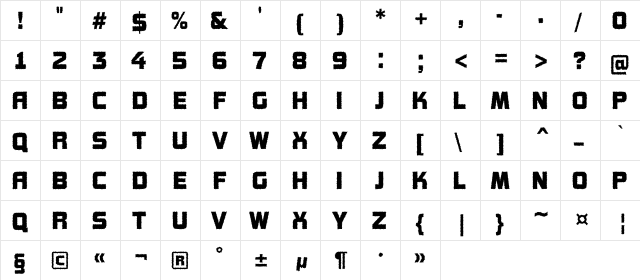
a_ConceptoTitulRough Regular
Design Context for a_ConceptoTitulRough Typeface
a_ConceptoTitulRough embraces imperfection — its rough, textured character adds raw authenticity to designs that want to feel lived-in and unconventional.
A strong fit for alternative music projects, graffiti-adjacent design, and anything that deliberately resists polish.
Pro Tip: Use a_ConceptoTitulRough at larger sizes where the texture and irregularity of each letterform can be clearly seen — it loses its character at small sizes.